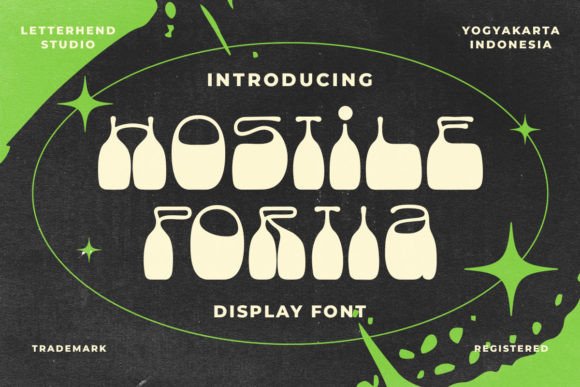
Hostile Portia Font: Aesthetic Display Type for Makers
As a small business owner and creator, finding the perfect typeface often feels like searching for a needle in a haystack. We need fonts that are not only visually striking but also functional across various mediums, from vinyl decals to printed packaging. Hostile Portia is a reverse display font that bridges the gap between high-end aesthetic appeal and practical craft utility. Its unique visual personality makes it an incredible asset for any font library, specifically for those of us creating physical products, digital downloads, and branded merchandise. Unlike standard scripts or basic sans serifs, this typeface offers a distinct texture that immediately elevates the perceived value of handmade goods.
Defining the Visual Personality of Hostile Portia
Hostile Portia stands out because of its reverse display characteristics. In typography, this usually implies a specific treatment where the weight or contrast creates a bold, often retro or brutalist impression that commands attention. For crafters, this means the font does the heavy lifting in a design without needing excessive embellishments. It possesses an inherent charm that balances modern edge with nostalgic warmth. This duality is essential for product creators who want their items to feel current yet timeless. Whether you are designing a minimalist candle label or a vibrant festival poster, the font’s structure provides a solid foundation that remains readable while delivering significant stylistic impact.
Elevating Physical Products and Packaging
The true test of any creative font is how it translates from screen to substrate. Hostile Portia excels in physical applications where clarity and style must coexist. For product packaging, such as soap wrappers, coffee bags, or boutique clothing tags, this display font creates instant brand recognition. The bold nature of the letterforms ensures that product names remain legible even when scaled down for small labels. When used on tote bags or apparel, the font’s aesthetic quality turns simple merchandise into desirable fashion statements. It avoids the generic look of free system fonts, signaling to customers that your brand invests in quality design assets.
- Candle and Soap Labels: Use Hostile Portia for the scent name or collection title to create a premium shelf presence.
- Apparel and Totes: Ideal for short, punchy phrases or brand logos that need to be readable from a distance.
- Product Tags: Provides excellent contrast against kraft paper or textured cardstock for a handmade feel.
- Seasonal Packaging: Versatile enough for holiday gift tags or limited-edition release announcements.
Digital Printables and Stationery Applications
For sellers of digital downloads and stationery, versatility is key to maximizing return on investment. Hostile Portia serves as a powerful header font for printable wall art, planner covers, and wedding invitations. In the competitive Etsy marketplace, listings featuring unique typography perform better because they stop the scroll. This font works exceptionally well for wedding welcome boards and seating charts, where the goal is to set a mood rather than convey dense information. Because it is a display typeface, it pairs beautifully with simpler body text, allowing you to create cohesive stationery suites that look professionally designed rather than templated.
Practical Readability and Cutting Machine Tips
A beautiful font is useless if it fails during production. When using Hostile Portia with cutting machines like Cricut or Silhouette, or when printing at small sizes, readability is paramount. Reverse display fonts can sometimes have intricate internal spaces or tight kerning that may pose challenges for vinyl weeding or paper cutting. Always perform a test cut on scrap material before committing to a full production run. If you are creating small stickers or intricate paper crafts, consider increasing the tracking slightly to prevent letters from merging. For printed cards and signs, ensure there is sufficient negative space around the text to maintain the font’s bold impact. Mockup previews are essential; what looks good at 72pt on a monitor may need adjustment when scaled to a 2-inch sticker.
Strategic Font Pairing for Balanced Design
To maximize the commercial utility of Hostile Portia, pair it with typefaces that provide contrast without competing for attention. Since this is a strong display font, it should generally serve as the focal point of your design. Pairing it with a clean, geometric sans serif font creates a modern, minimalist aesthetic perfect for tech accessories or contemporary home decor. Alternatively, combining Hostile Portia with a delicate handwritten font or flowing script adds a layer of softness and personalization, which is ideal for wedding stationery or greeting cards. Avoid pairing it with other heavy display fonts or ornate serifs, as this can clutter the design and reduce legibility. The goal is to let Hostile Portia shine as the star while supporting elements guide the viewer’s eye.
Checking Technical Specs and Alternates
Before integrating Hostile Portia into your workflow, take time to explore the included files and features. Many premium fonts include OpenType features like ligatures, swashes, and alternate characters that can drastically change the vibe of a project. These extras allow you to customize the typeface so that no two products look identical, which is crucial for maintaining a bespoke feel in handmade businesses. Check for multilingual support if you sell internationally or create bilingual products. Additionally, verify the file formats included; having both OTF and TTF files ensures compatibility across different design software and cutting machine platforms. Understanding these technical details prevents frustration during the design process and unlocks the full creative potential of the typeface.